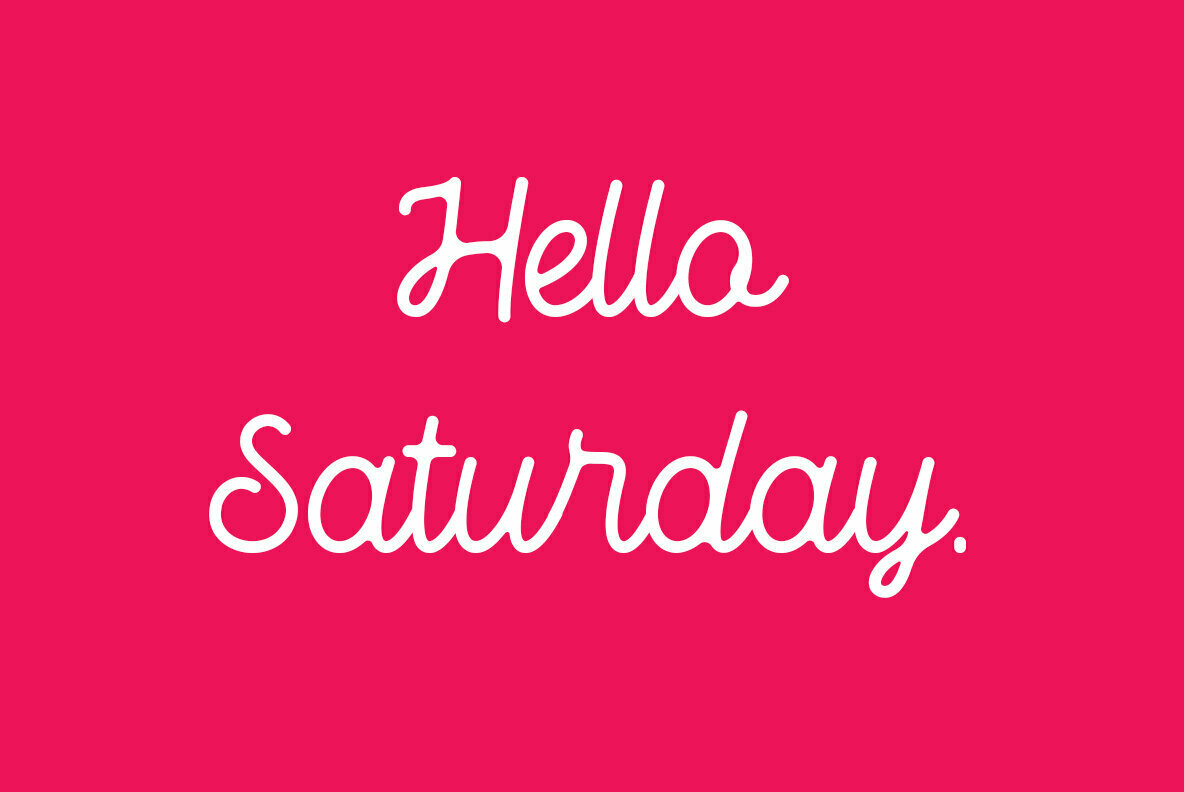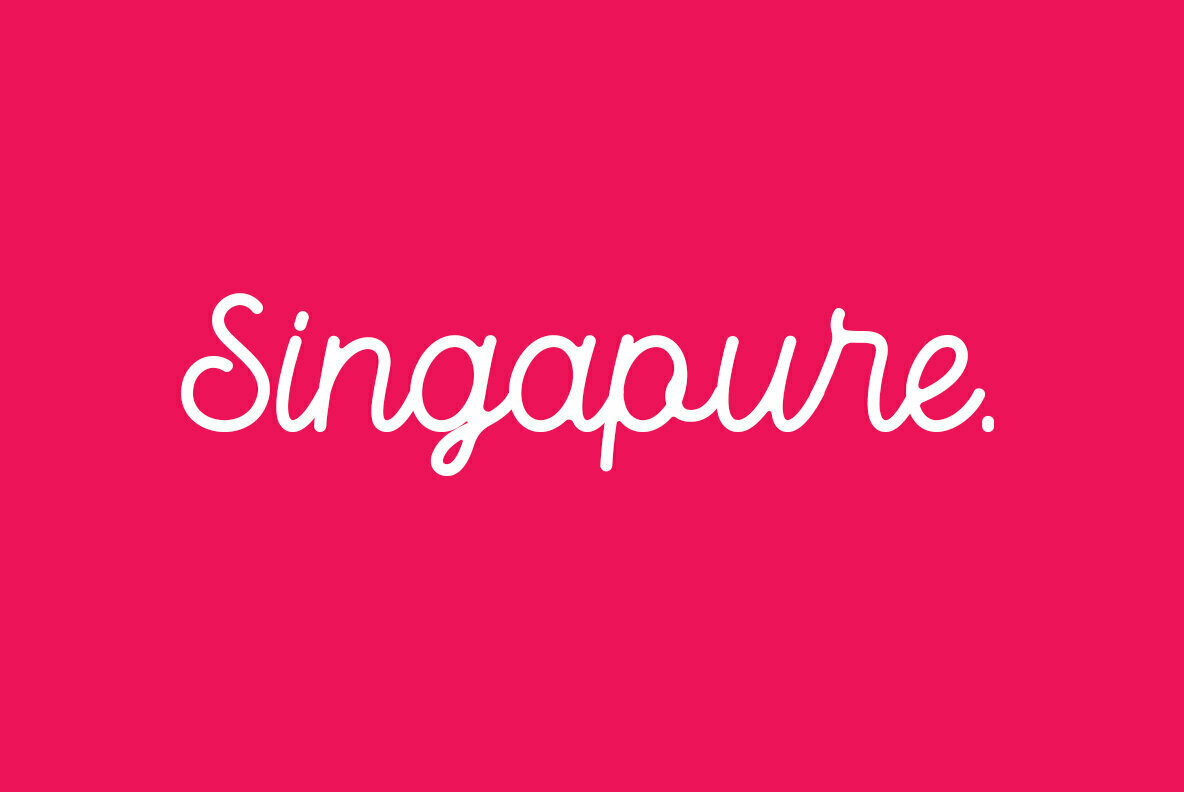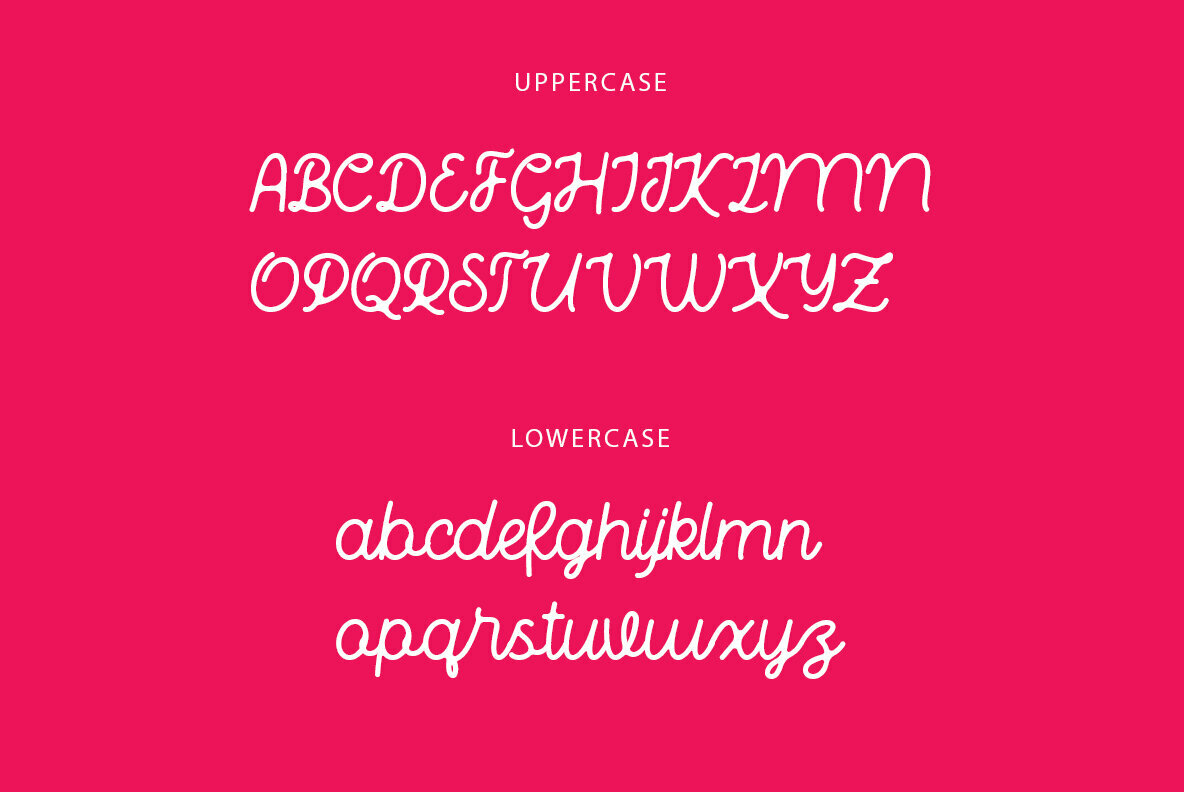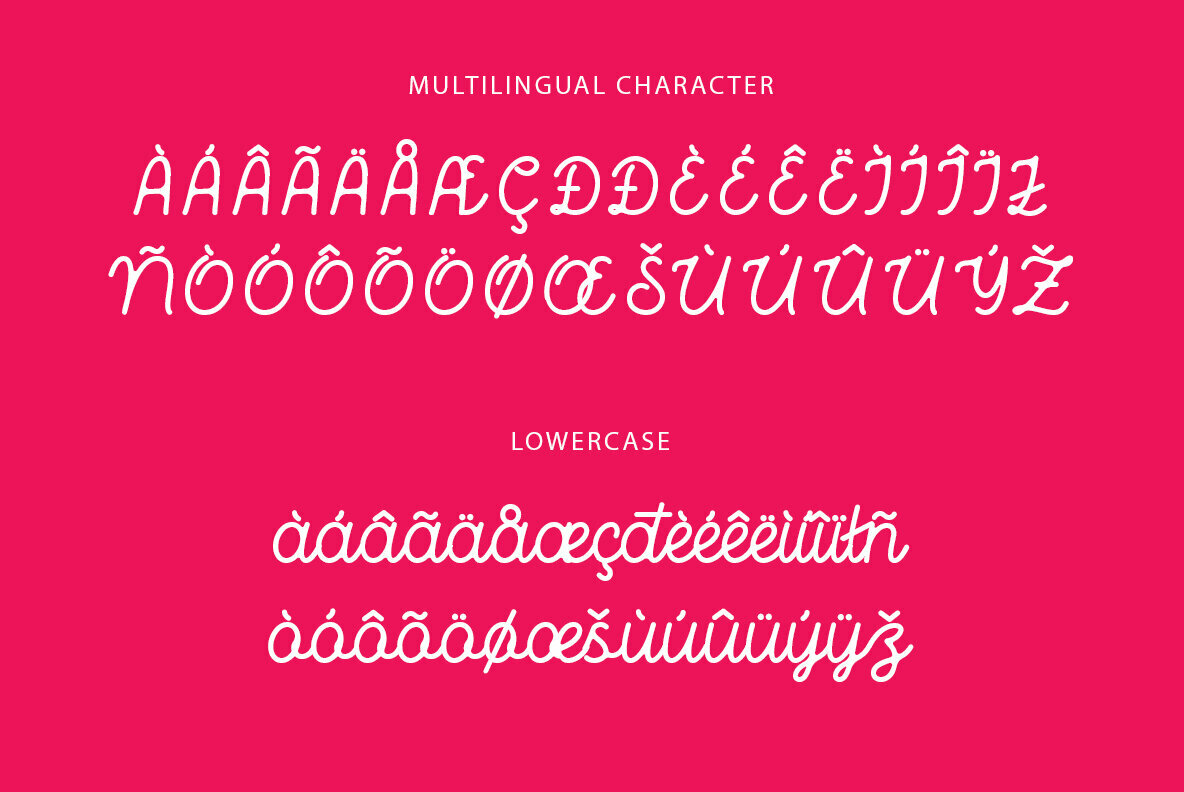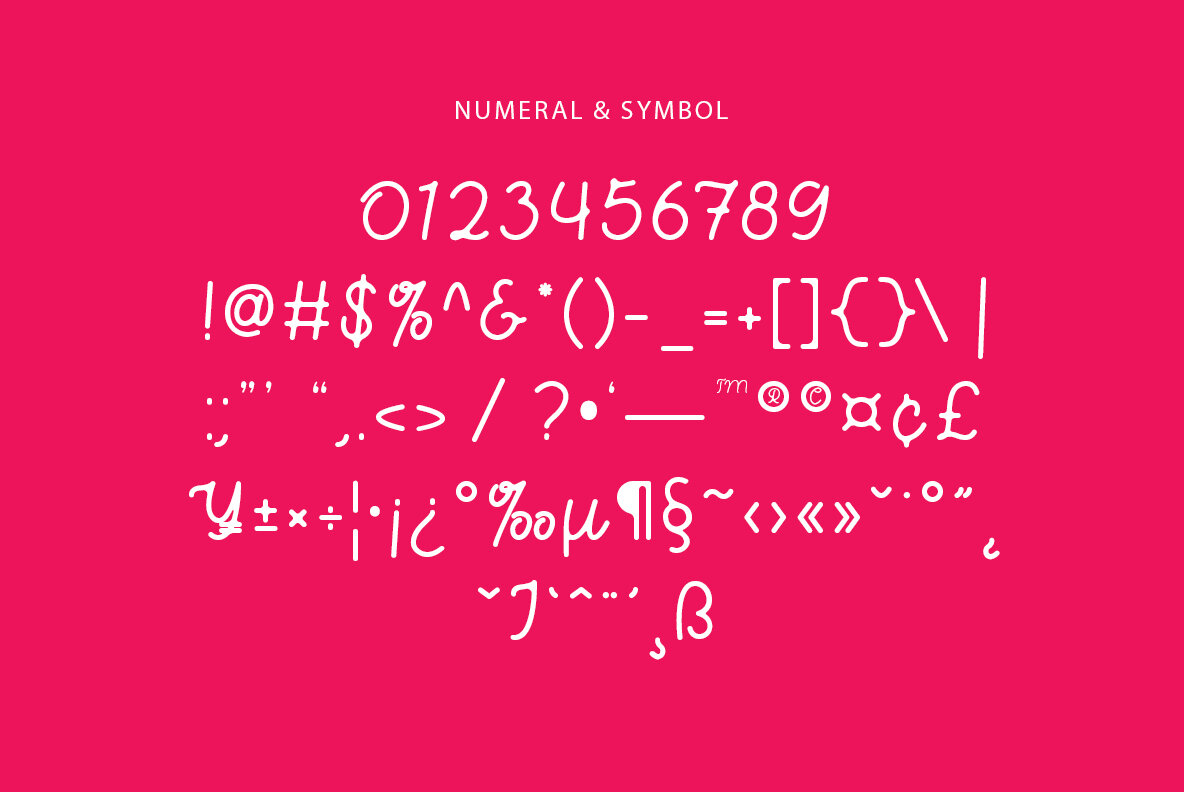
Bhamious Font
Bhamious
Bhamious offers a refined monoline aesthetic that infuses any project with sophistication. Boasting a versatile elegance, this font seamlessly adapts to the world of fashion and branding. Ideal for signature pieces, album covers, and logos, Bhamious not only elevates your design but also navigates diverse applications with ease.Bhamious: Elegant Monoline Versatility
Highlight Features
Grace your designs with Bhamious, a fantastic choice for digital and print formats alike.